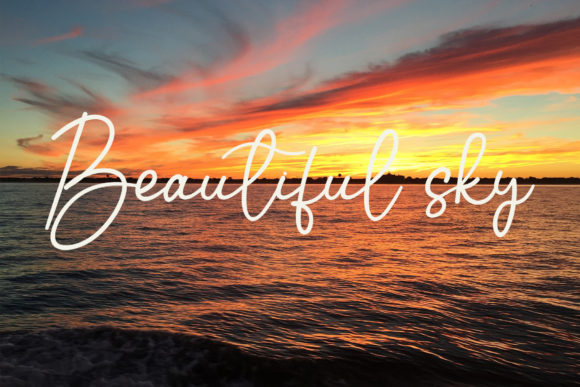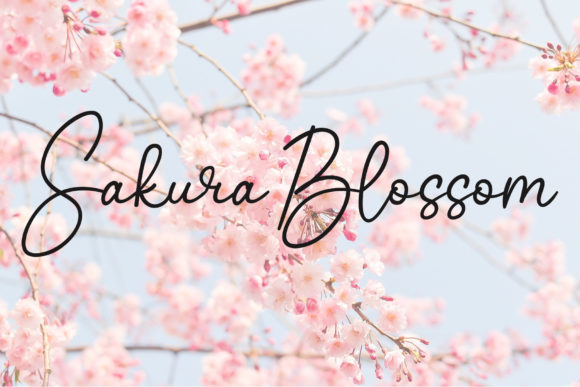
Rainbow Handmade Font
db-ku.com - Script & Handwritten -- Rainbow Handmade is a sweet, whimsical, flowing and thin script font. Featuring characters that dance along the baseline, this font will add a luxury spark to any design project that you wish to create!